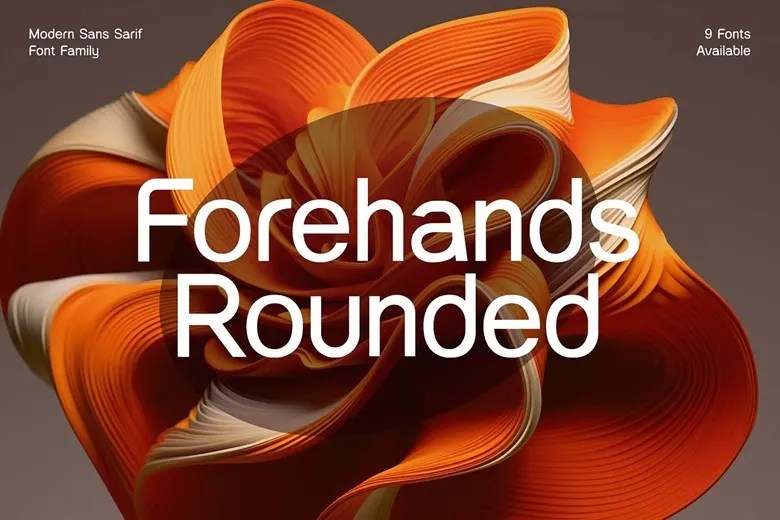
Forehands Rounded Font Family
Forehands Rounded Font Family is an elegant and modern rounded sans serif typeface, perfect for a wide variety of design projects. Its smooth curves and clean lines make it ideal for use in logos, wedding invitations, typography quotes, magazine or book covers, web headers, branding, and more. This versatile font brings a refined and stylish touch to any work.
The font’s rounded features give it a friendly yet professional look, making it suitable for both casual and formal design applications. Whether you’re working on a personal project or branding for a business, Forehands Rounded offers a polished and sophisticated option.